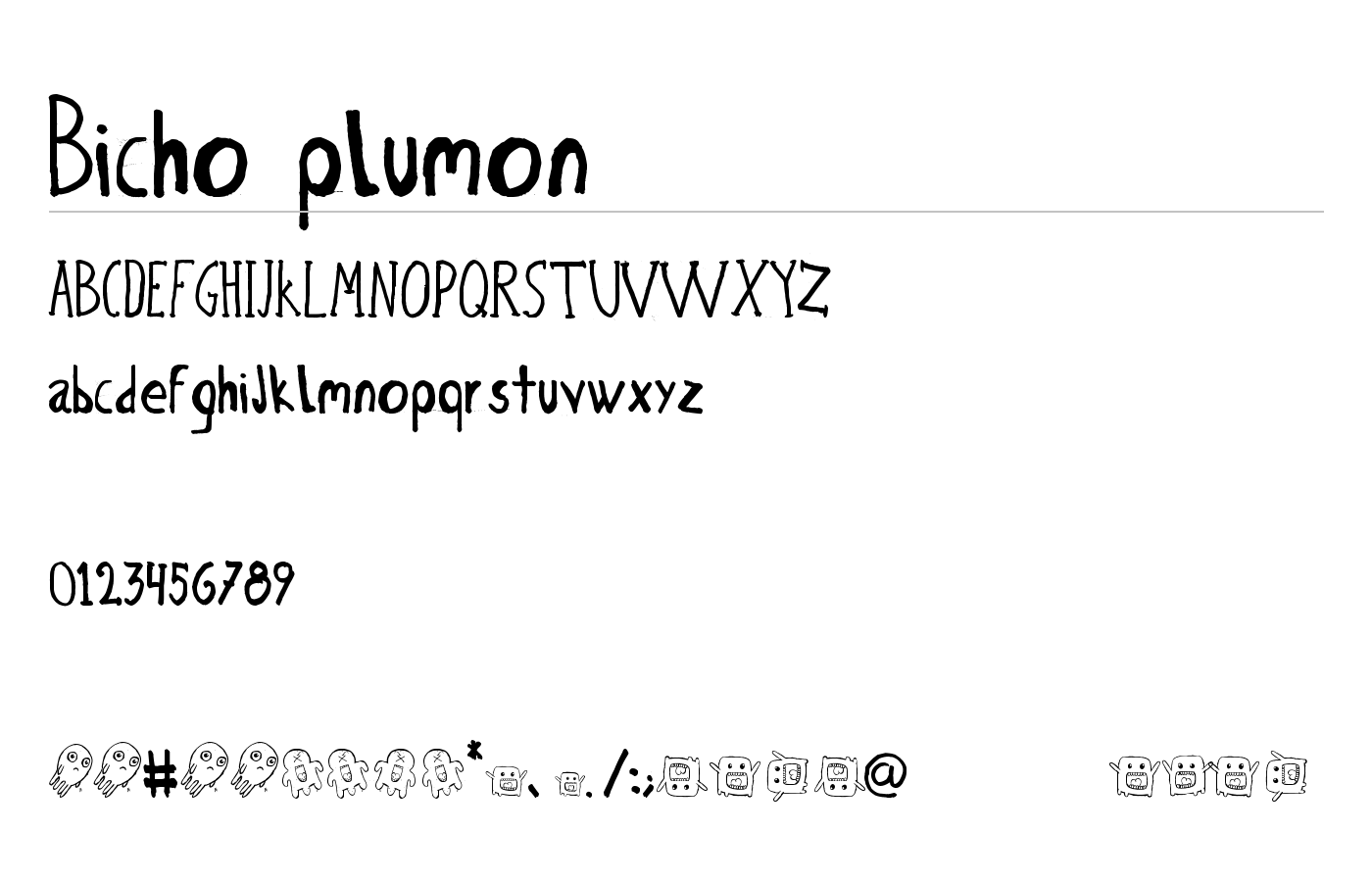
Bicho Plumon is a playful, hand-drawn sans serif font that feels casual and whimsical with its uneven strokes and quirky character shapes. Its irregular weight and friendly style make it ideal for creative projects, children’s books, or informal branding that wants to convey fun and originality. Perfect for headlines or logos where a unique, approachable personality is needed.
Bicho plumon Font